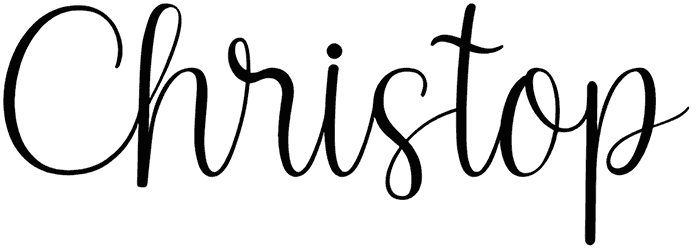
Christop Font
Christop is an artistic Christmas font that comes with crooked and rounded letters, thus it can lead to a vibe of dynamic, personalization, dreaminess, and tenderness.
It can help you to add a fresh breath to your social media posts, video game posters, product packaging, billboards, or applications. In addition to this masterpiece, don’t forget to check out the RB archive for daily updates and more fonts.